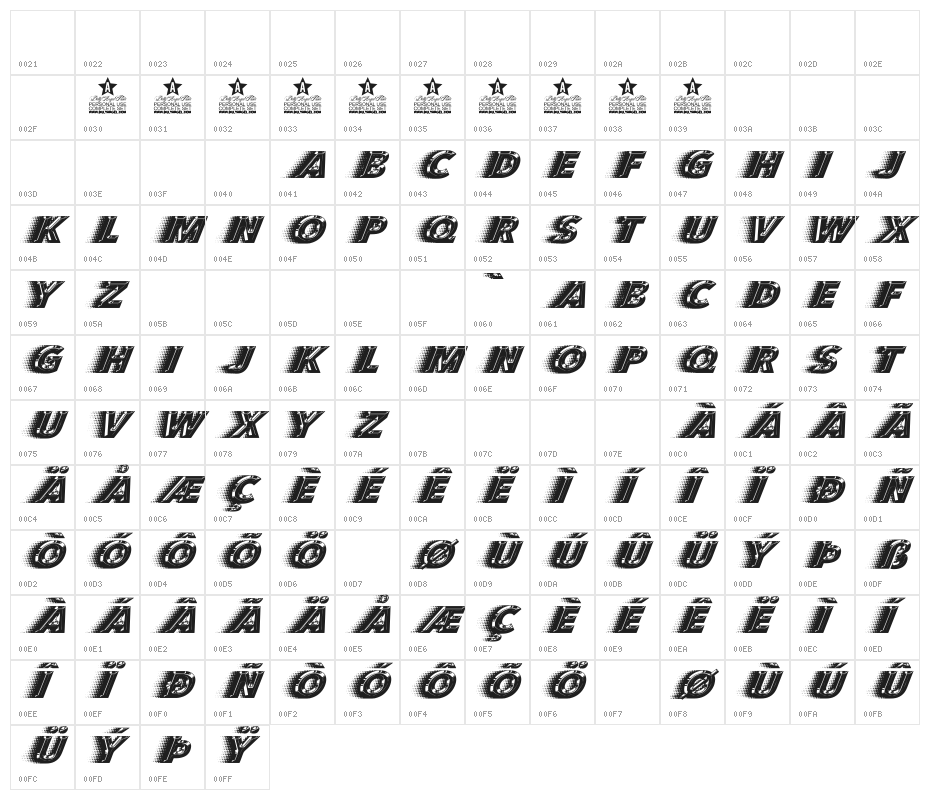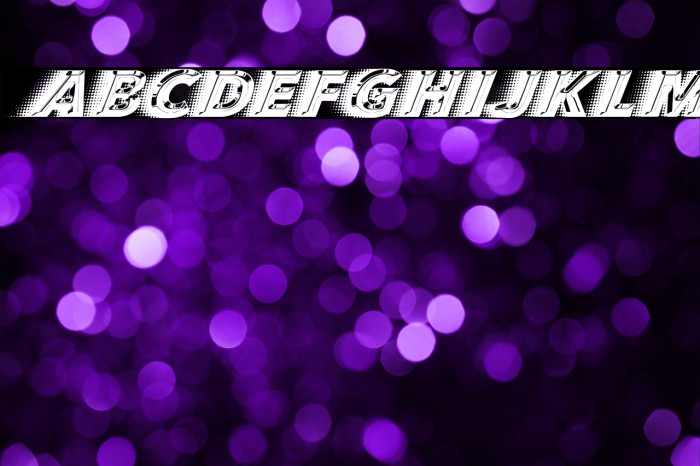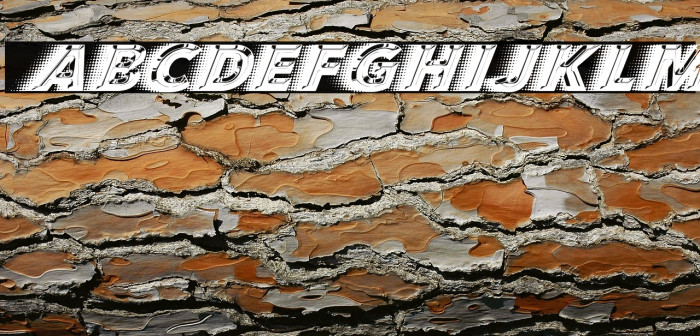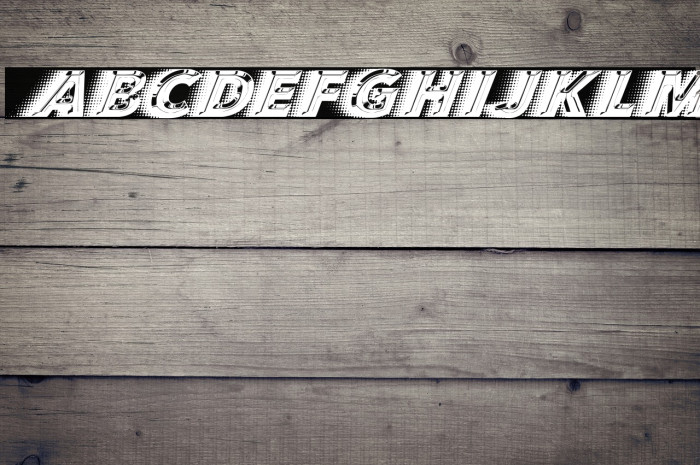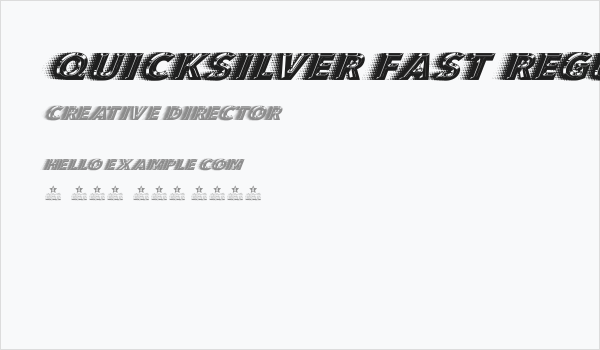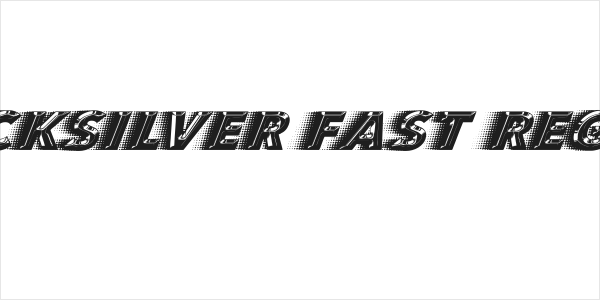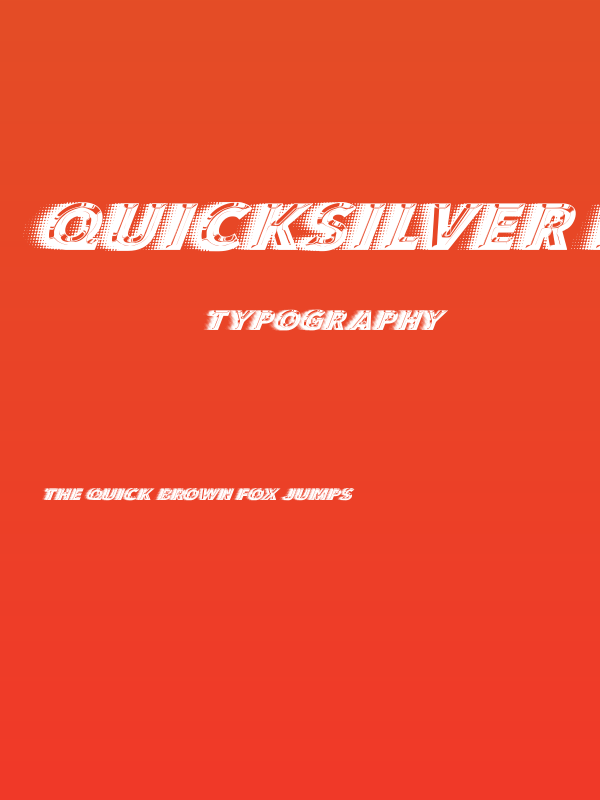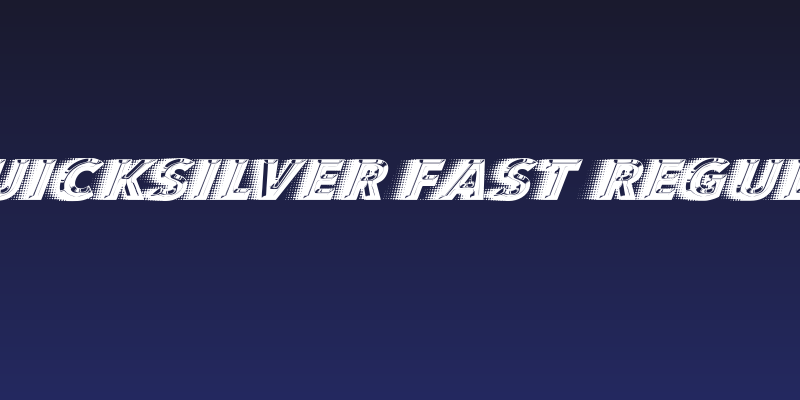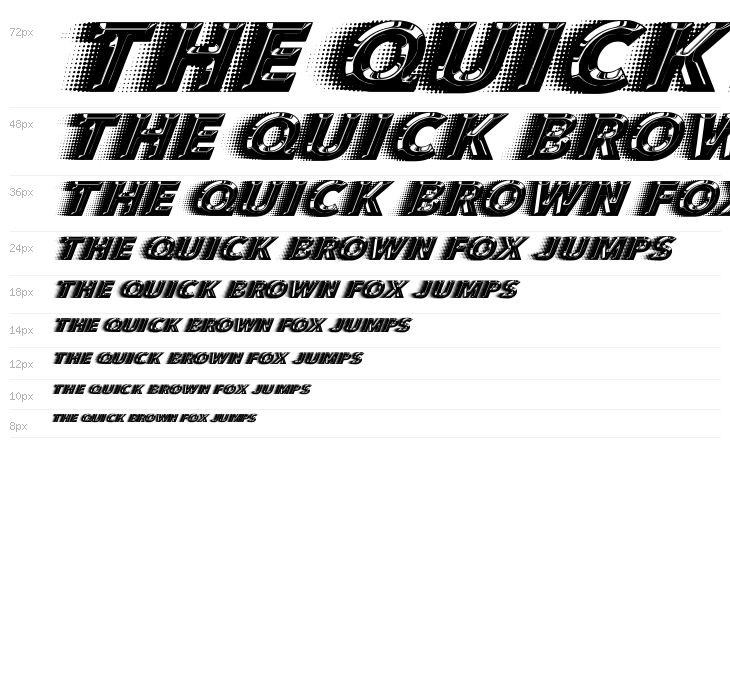
QUICKSILVER FAST Regular Font
QUICKSILVER FAST Regular Description
This font features a bold and dynamic style with a distinct halftone pattern that gives it a retro, comic book-like appearance. The uppercase letters are designed with a strong, impactful presence, making them ideal for attention-grabbing headlines or titles. The characters have a slight slant, adding a sense of motion and speed, which is further emphasized by the dotted texture. This unique texture creates a sense of depth and dimension, making the font stand out in any design. The overall aesthetic is both playful and assertive, suitable for projects that require a bold statement.
| Overall Style | Retro, Dynamic |
| Proposed Projects | Ideal for comic book covers, retro posters, video game titles, and dynamic branding projects. |